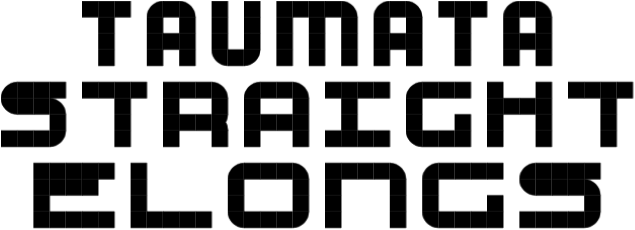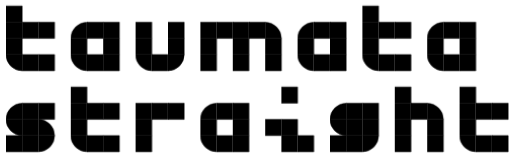
{ABCDEFGHIJKLMNOPQRSTUVWXYZabcdefghijklmnopqrstuvwxyz} extendable (mostly shorten/elongate repeated chatacters)
AWWWK BXXXL COOOO BOOON BXXXZ BWWWF CZZZP BÕÕÕB ZZBZZ ZZUFF BÕÕÕQ BDDDD BFBFK BFFFK CZZZN BWWWR CZZZS BWWWÖ EXXXT FFBFF GDDDU BDDDU BDBDU HÕÕÕQ IYYYU JXXXV
ÀYYYÂ BYYYÉ ÀYYYY ÀYYYB ÀÂÂÂÊ AWWWF ÄÂÂÂË BÕÕÕÌ ÁÁÑDD DDÒÁÁ BÁÁÁÍ GDDDD ÂÕÂÕÌ ÂÕÕÕÌ ÀYYYÉ ÂÓÓÓÎ ÃÓÓÓÂ ÂÕÕÕÕ ÄÂÂÂÏ GYYDD ÅDDDË ÂDDDË ÂDÂDË ÆÁÁÁÍ ÇÔÔÔË ÈÂÂÂÐ